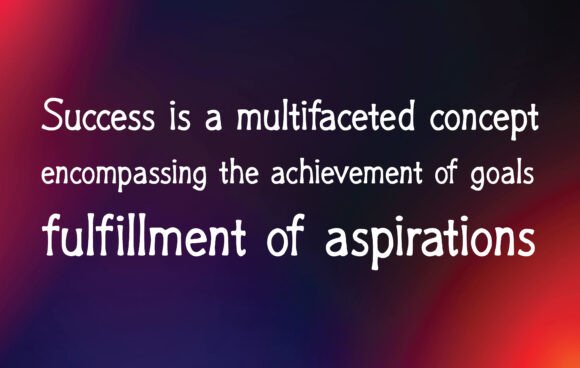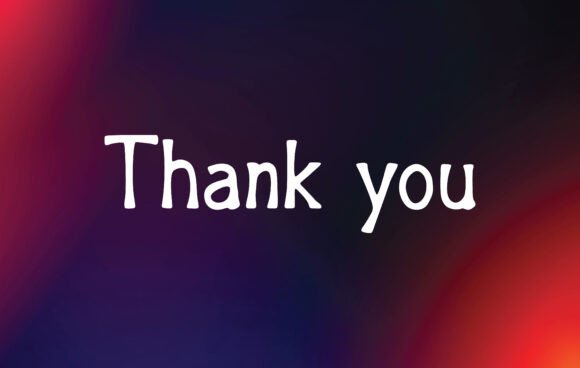
Unlock Your Creative Potential with the Clover Font
Do you remember that moment when you had a spark of creativity, but struggled to bring it to life? Maybe it was a brilliant idea for a logo, a catchy phrase for your brand, or a beautiful quote that needed the perfect font to make it shine. Whatever it was, you felt the excitement and anticipation of seeing it come to fruition.
That’s where the Clover Font comes in – a lovely and beautiful handwritten font that has the power to elevate your creative ideas to new heights. With its unique charm and character, the Clover Font is the perfect choice for designers who want to create eye-catching logos, branding, and quotes that leave a lasting impression. Whether you’re a seasoned pro or just starting out, the Clover Font is a valuable asset in your design toolkit, helping you to bring your most innovative ideas to life.
Clover Font Key Features
- Unique Characteristics: Clover Font features a distinctive, hand-drawn design with a mix of serif and sans-serif elements, giving it a unique and eye-catching look.
- Legibility: The font is designed for optimal legibility, with clear and readable letterforms that work well in both body text and display headings.
Clover Font Review
Clover Font is an interesting addition to the world of typography. ✨ One of its strongest points is its unique blend of modern and vintage elements, making it suitable for a wide range of projects. The font’s flexibility and adaptability are undeniable, and I appreciate the designer’s effort to create a versatile font that can be used in various contexts.
Another positive aspect of Clover Font is its high-quality rendering, both on screen and in print. ✨ The font’s details and lines are crisp and clear, ensuring that your design will look professional and well-crafted.
- ⚠️ Limited character set: While Clover Font has a decent number of characters, it still falls short in terms of language support and special characters.
- ⚠️ No bold or italic weights: The font only comes in a single weight, which may not be suitable for all design projects that require more emphasis or variety.
- ⚠️ Limited OpenType features: Clover Font lacks some advanced OpenType features, which might limit its use in more complex typography projects.
Overall, Clover Font is a solid choice for designers who want a unique, modern font that’s easy to work with. While it has some limitations, its strengths make it a worthwhile addition to any design library.
Getting the Most Out of Clover Font
To get the most out of the Clover Font, try:
- Using it in combination with other fonts for a unique and playful look.
- Experimenting with different font sizes and colors to add emphasis and visual interest.
- Using it in headings and titles to create a cohesive brand identity.
The Clover Font is commonly used in:
- Branding and marketing materials, such as logos and business cards.
- Graphic design projects, such as infographics and posters.
- Editorial and publishing materials, such as book covers and magazine
Alternatives to Clover Font
Lato is a sans-serif font designed by Łukasz Dziedzic. It’s a great alternative to Clover Font when you need a clean and modern look. Lato is more versatile and works well in both digital and print media.
Comparison: Lato Font is more geometric and has a larger x-height compared to Clover Font, making it more readable at smaller font sizes.